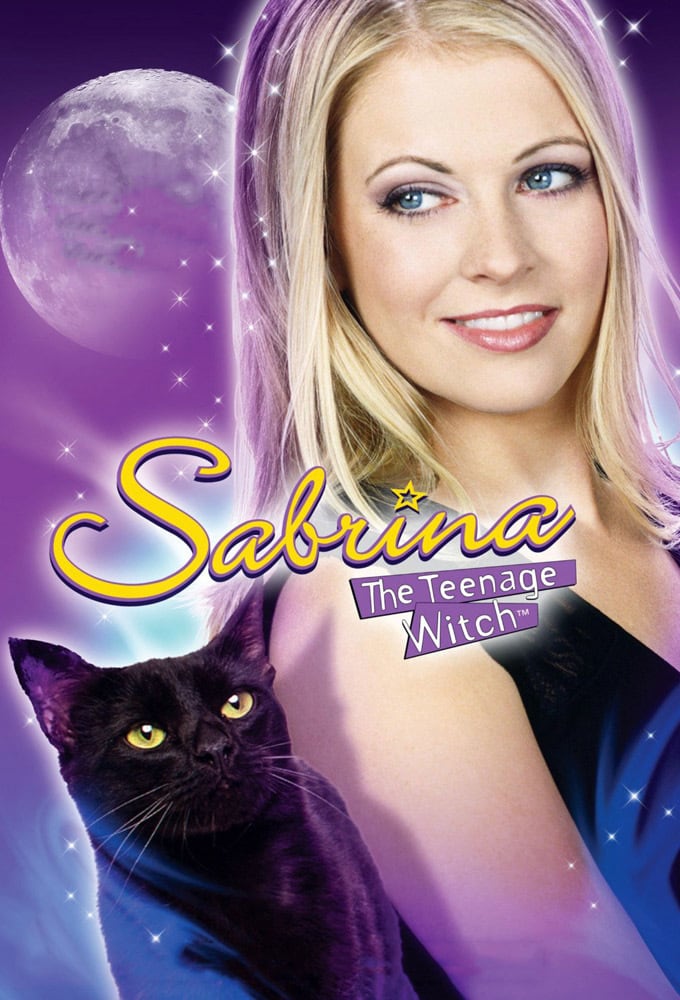
Sabrina the Teenage Witch Font
ComedySabrina the Teenage Witch is a television series that originally aired from 1996 to 2003. The show is based on the Archie Comics series of the same name and follows the adventures of a teenage witch named Sabrina Spellman.
On the poster of the TV series, "The Teenage Witch" parts appear to be Template Gothic by Barry Deck and the script part 'Sabrina' is Alan Meeks's Bickley Script based on the copperplate handwriting.